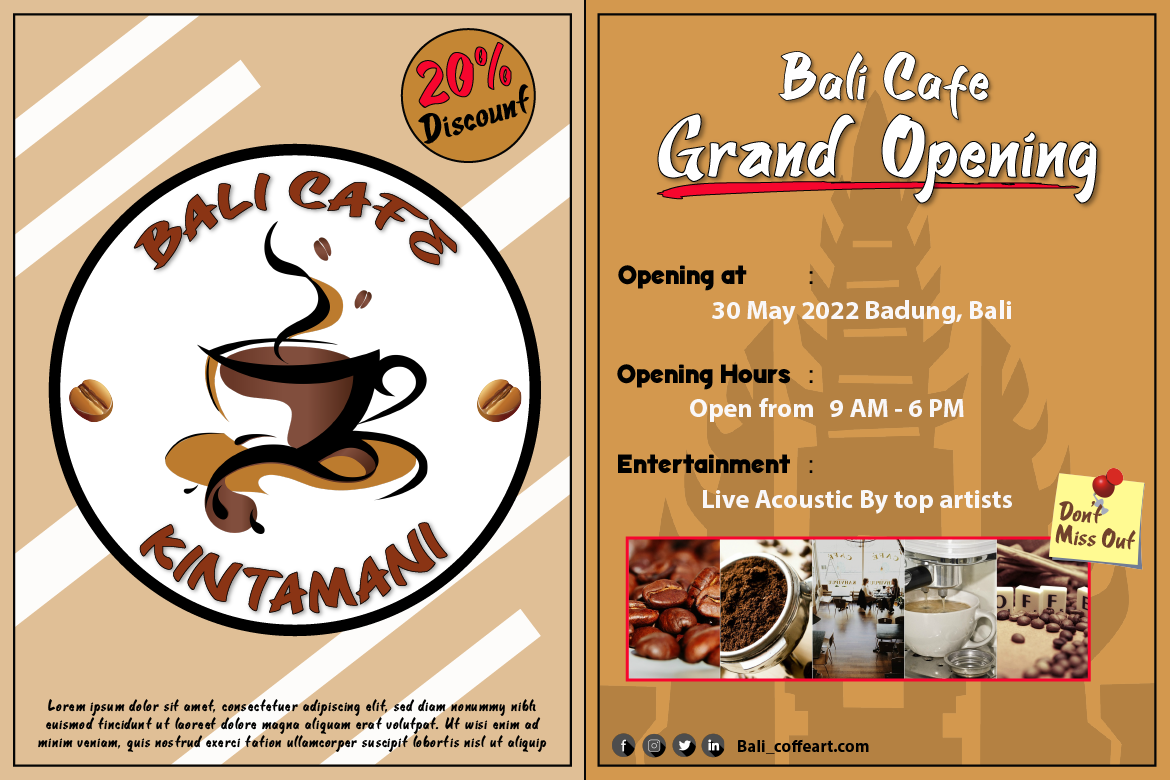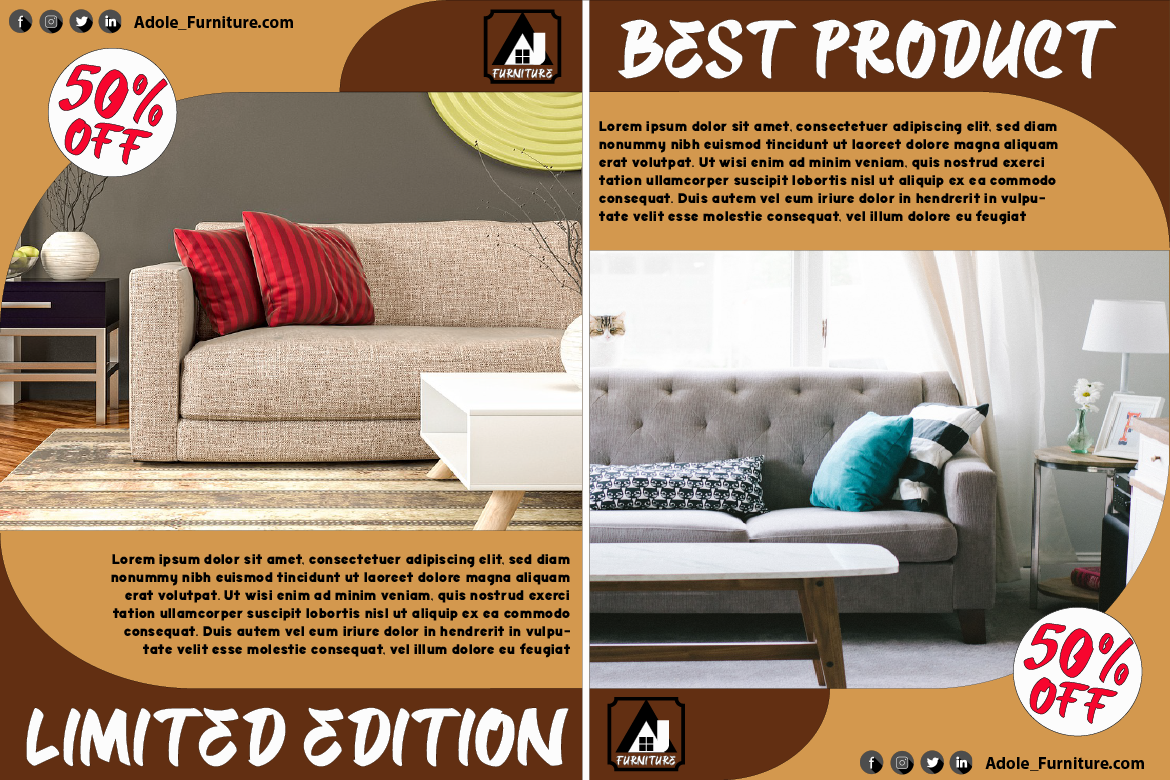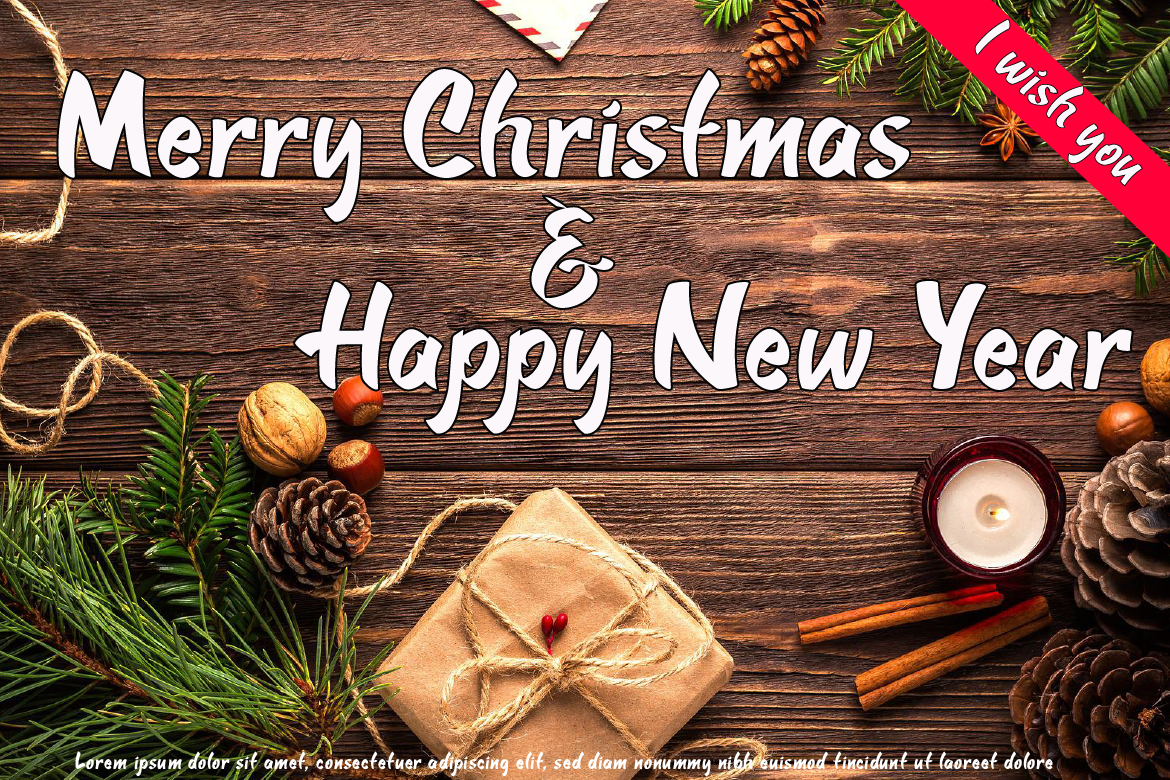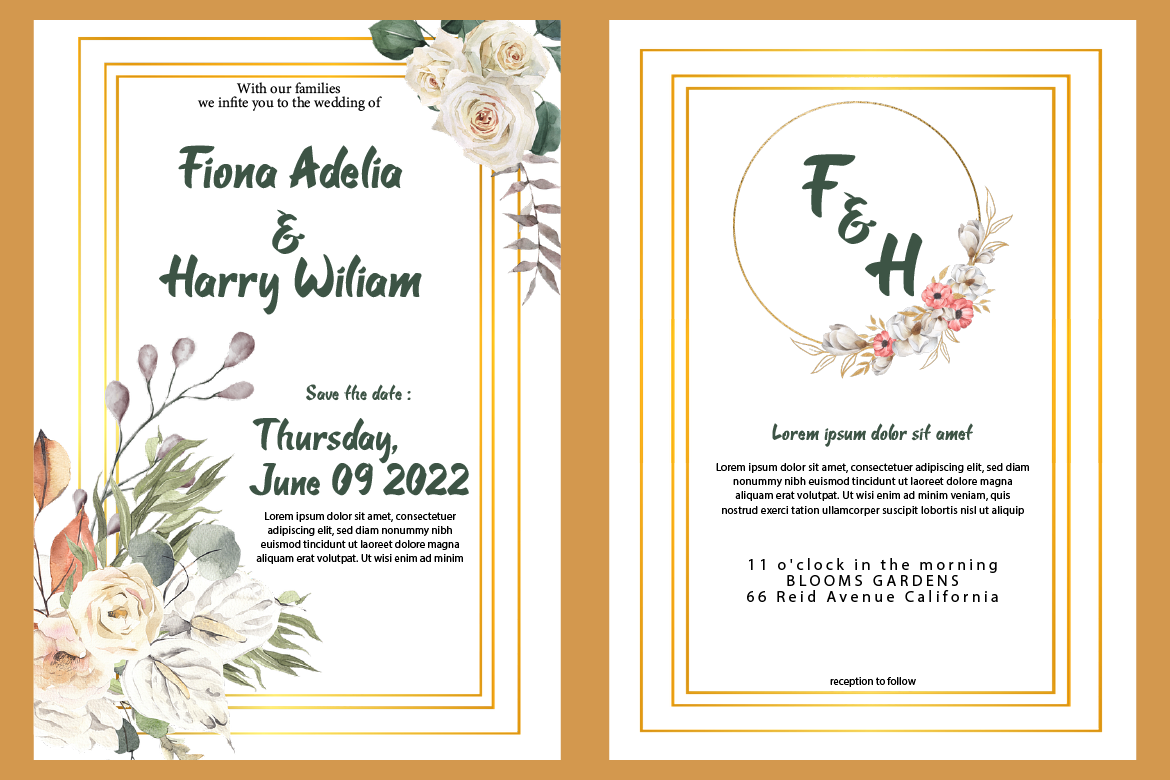
Camplones Display Font is a handwritten font that accentuates the style and curve of the hand when inking the ink on the paper by perfecting the shape of each character so that Camplones looks very beautiful when applied in a sentence.
Camplones is specially shaped and made so that users feel the touch of a hand that lives in the character of the letters so that it has tremendous value when used in your templates, game fonts, wedding invitations or sales products which will surely be very attractive to consumers when they see it and will definitely love it. make the product look more elegant and will increase the selling value of your product.